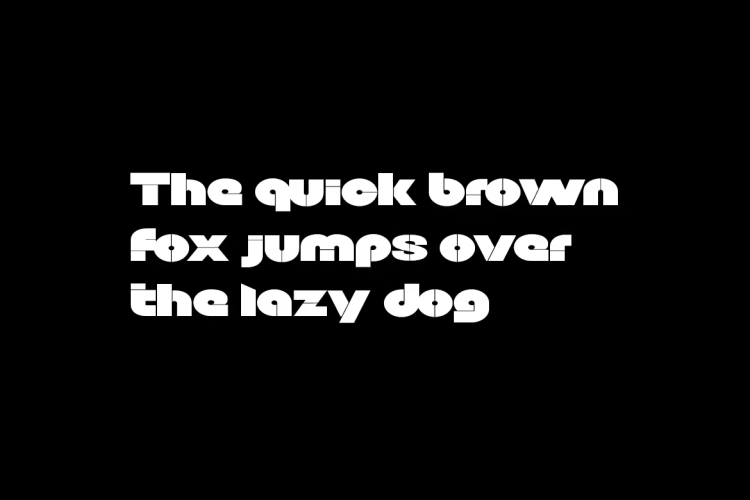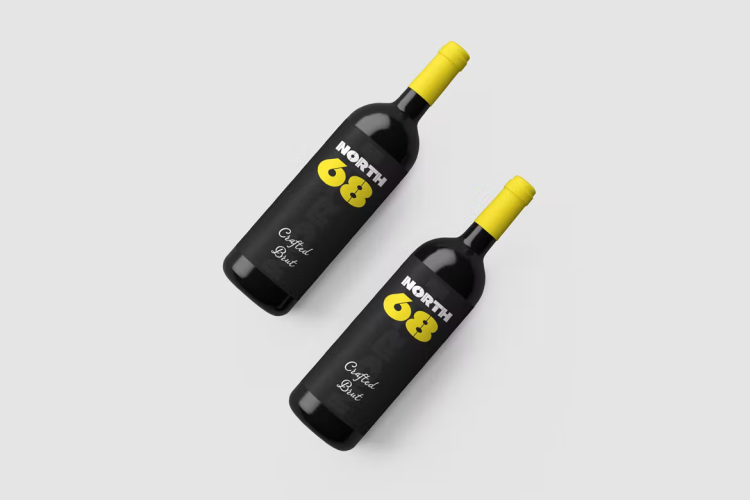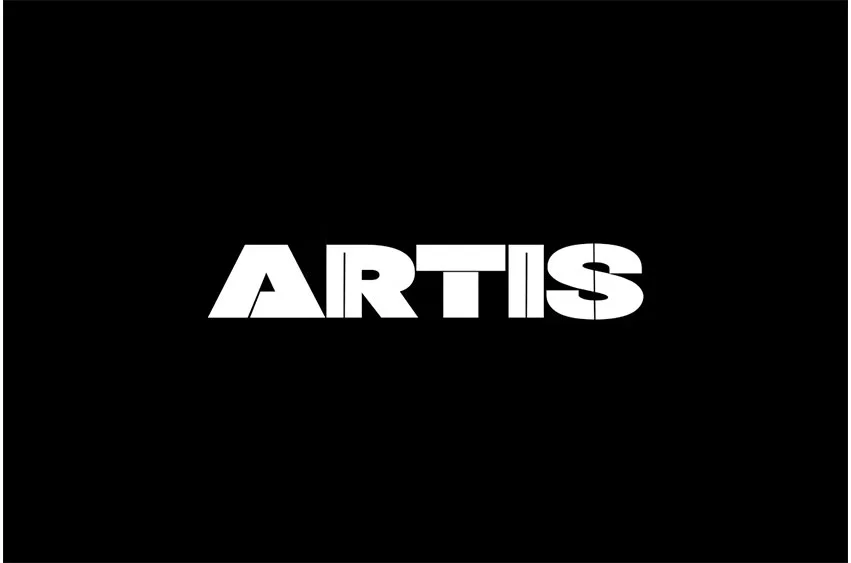
ARTIS Font
ARTIS Font is a unique display typeface made with a touch of its own. This typeface is perfect for headlines, big text, branding, logotypes & display usage. Also suitable for creating outstanding logos, promotional content, and marketing graphics that can really grab attention from your visitors. Please see the examples shown above to get an idea about the capability of this typeface.
Where ARTIS Font works best
Headlines and titles
ARTIS Font has enough character to carry a headline on its own; set it large and keep the supporting text plain.
Brand and product names
Short strings are where this typeface is strongest — a name, a label, a cover line.
Social and video graphics
Set ARTIS Font over a flat colour or a quiet photograph so the letterforms stay the focus.
What kind of work does ARTIS Font suit?
It sits in the Web Fonts group and reads as branding, display, headlines, typeface. That makes it a candidate wherever those qualities help: headings, packaging, social graphics and brand work. Set it at the size you plan to use before deciding.